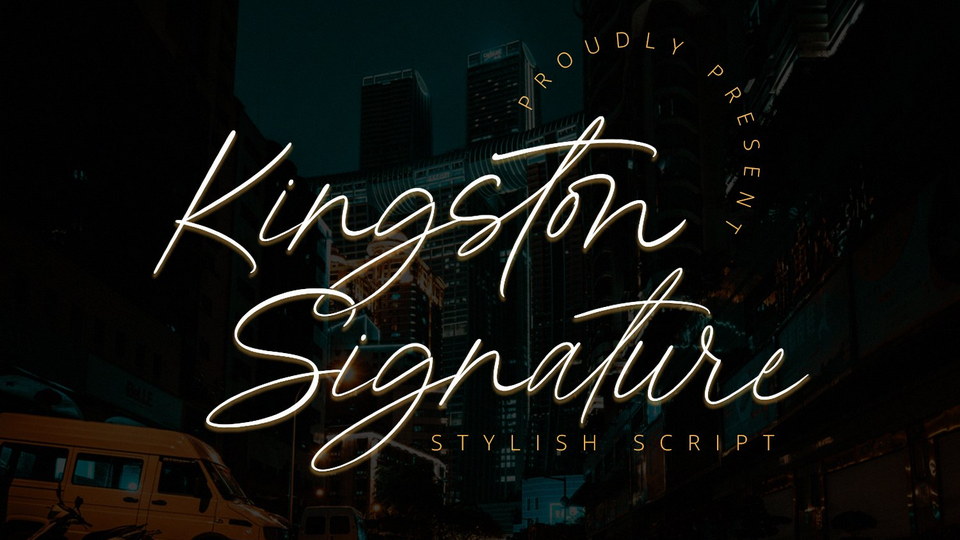
Download Kingston Signature font, a stunning signature script with an authentic and casual feel. Kingston Signature will be perfectly used for branding, logo design, lettering, clothing, poster, magazine, packaging
Designer: Alpaprana Studio